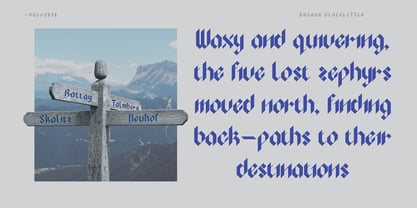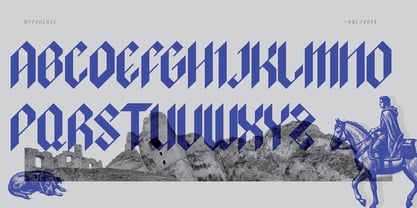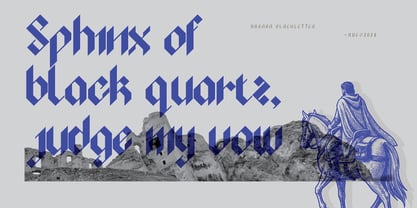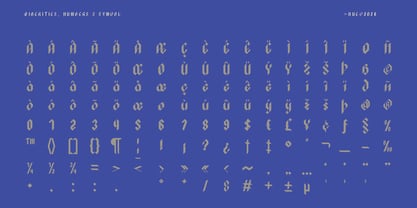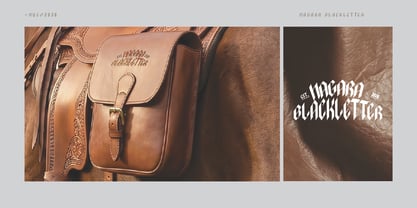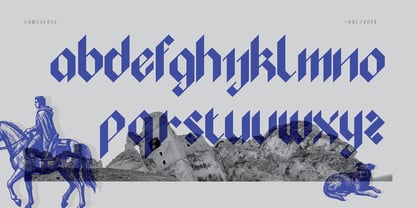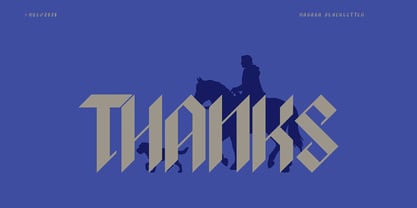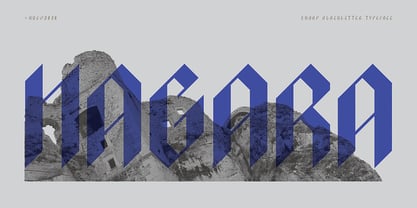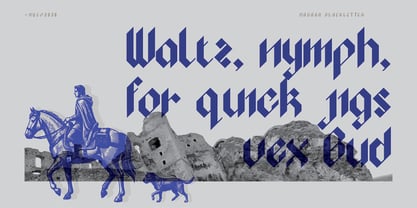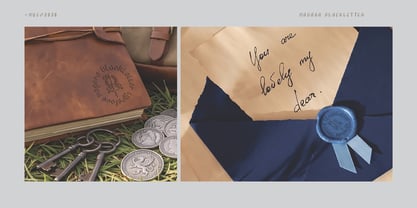
Nagara
by Nue
The Nagara Font Family was designed by Irwan Nugroho and published by Nue. Nagara contains 1 styles. More about this family
A sharp and expressive blackletter typeface that brings traditional Gothic forms into a cleaner contemporary setting. Its angular strokes, distinctive letterforms, and strong rhythm create a bold texture while maintaining clarity across headlines and short passages.
Designed for posters, branding, packaging, editorial titles, music artwork, and identity projects, the typeface works especially well when a strong historical or dramatic character is needed. Traditional blackletter influences are balanced with simplified details, giving the family a character that feels familiar without being overly ornamental.
Designers: Irwan Nugroho
Foundry: Nue